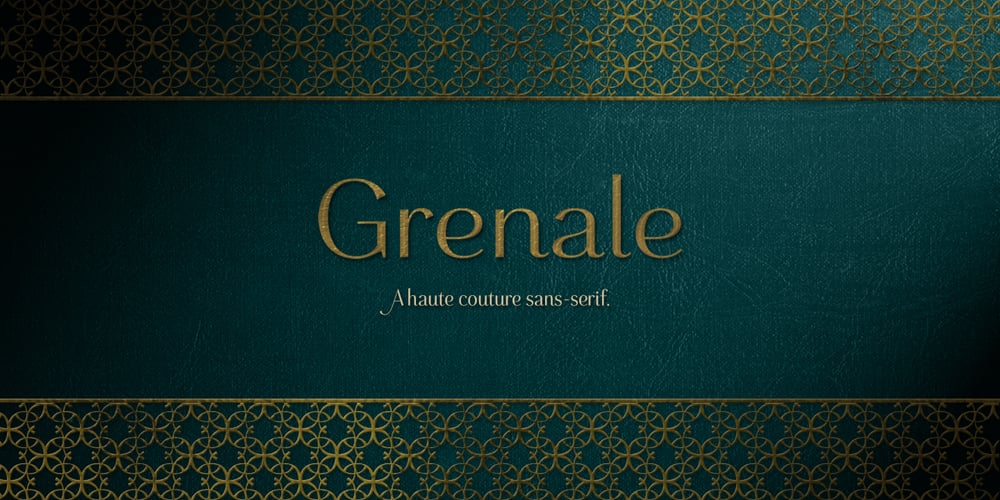
Grenale Font Family was designed by Jeremy Dooley and published by insigne. Grenale contains 48 styles and family package options. The elegant Grenale brings a new look to the classic didone. This shimmering sans-serif family with its mild deco shades alters the typical serifs and terminals of the classic style to form a gracefully eye-catching, high-contrast font. While high-contrast, sans serif forms tend to disappear in the copy, Grenale’s meticulously designed features exhibit proper balance in the spacing and in the thorough improvements of its contours. The rigorous consideration given these details leaves a delicate typeface that doesn’t get washed out in certain applications. Its pure, polished, geometric structure has a glamorous sensitivity, drawing heavily from the inspiration of the haute couture influence. Grenale’s thin weights are simple but vibrant–elegant forms that naturally lend themselves to high fashion journals, high-end branding, and other five star applications. With added energy and power, the thicker weights with their ink traps and optical compensation intensify the gravitas for a statelier look to the graceful forms. Grenale’s upright versions are also matched by optically adjusted italics, intentionally tailored to maintain their counterparts’ sharp edge, causing the font’s fierce characteristics to shine through the refined face. The typeface also includes a wide variety of alternates that can be accessed in any OpenType-enabled application. The stylish features include a large group of alternates, swashes, and meticulously precise details with teardrop terminals and alternate titling caps to accessorize the font. Also included are capital swash alternates, old style figures, and small caps. Take a look at the informative PDF brochure to see these features in action. OpenType enabled applications such as the Adobe suite or Quark can take full advantage of the automatic replacing ligatures and alternates. This family also offers the glyphs to support a wide range of languages. It’s time to think high-class. Graceful and confident, Grenale’s carefully crafted features transfer pleasantly to each page with elegant charm. With its variety of alternate glyphs and its high, classy contrast, this five star font is a great option for bringing a more refined look to your work. Production assistance for Grenale provided from Lucas Azevedo and iKern.